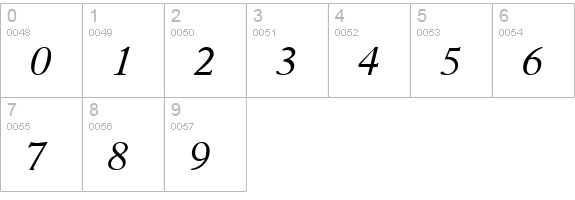
A831-Roman-Italic Font Details
A831-Roman-Italic is a distinctive, italic variant in the A831 typeface family \xE2\x80\x94 well suited to design and typography projects.
A831-Roman-Italic font is a classic and elegant typeface that exudes sophistication and style. Its refined serifs and graceful curves make it perfect for adding a touch of elegance to any design project. This versatile font is ideal for use in branding, editorial design, invitations, and more. The A831-Roman-Italic font is not only visually appealing but also highly readable, making it a great choice for both print and digital applications. Its timeless design ensures that it will remain a staple in your font collection for years to come. Best of all, the A831-Roman-Italic font is available for free download at FontsMarket.com. So go ahead and enhance your design projects with this exquisite typeface without breaking the bank. Download now and elevate your creative endeavors with the A831-Roman-Italic font.